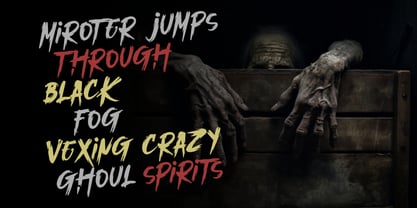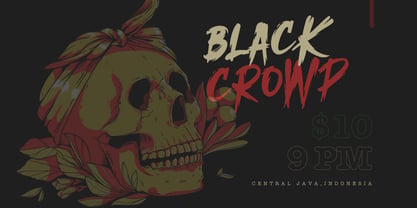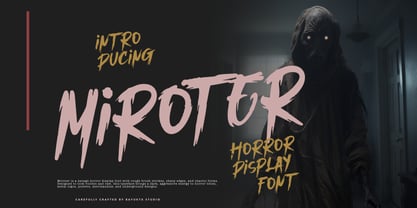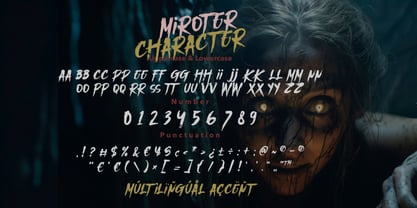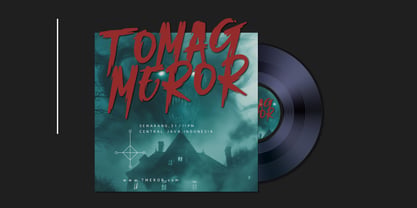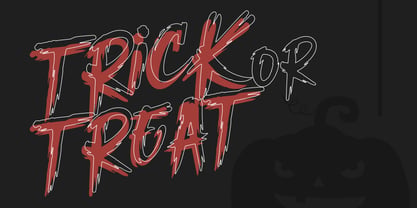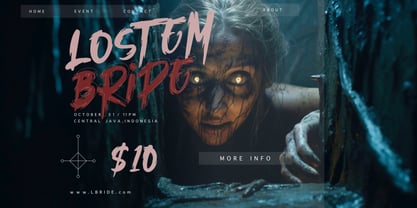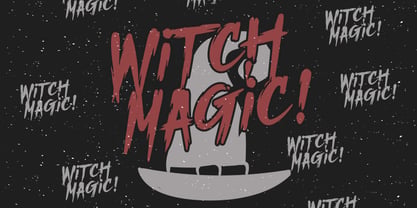
Miroter
by Bayuktx
The Miroter Font Family was designed by Bayu Aji Fais Mursid and published by Bayuktx. Miroter contains 1 styles. More about this family
Miroter – Horror Brush Display Font Miroter Horror Brush Display Font is a savage and chaotic typeface inspired by dark horror movies, occult themes, and underground poster art. With rough brush strokes, sharp edges, and distorted forms, this font delivers a violent, raw, and unsettling atmosphere that instantly grabs attention. Designed with aggressive energy and hand-brushed textures, Miroter creates a dramatic visual impact. Every letter feels wild, broken, and intense — making it perfect for horror titles, metal logos, thriller posters, and dark branding. Whether for movie titles, band logos, posters, or merchandise, Miroter brings a terrifying and rebellious identity to your typography. Key Features : * Uppercase Display Characters * Numerals & Punctuation * Multilingual Support * PUA Encoded & OpenType Features * Rough Brush & Horror Strokes * Sharp, Chaotic, Distorted Style Suitable For : * Horror & Thriller Movie Titles * Metal & Dark Music Logos * Halloween Posters & Event Flyers * Gothic & Occult Branding * Game Titles & Cover Art * Aesthetic & Merchandise * Experimental Horror Typography With Miroter Horror Brush Display Font, your designs gain a terrifying presence, dark emotion, and raw brutality — perfect for projects that demand fear, chaos, and visual impact.